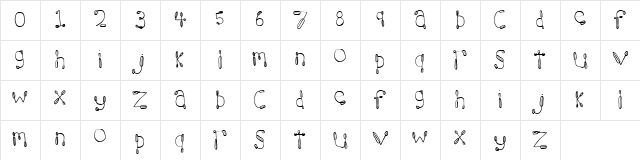
7 hours Regular
Design Context for 7 hours
7 hours is a composed and adaptable typeface that performs quietly and consistently across a wide range of design contexts.